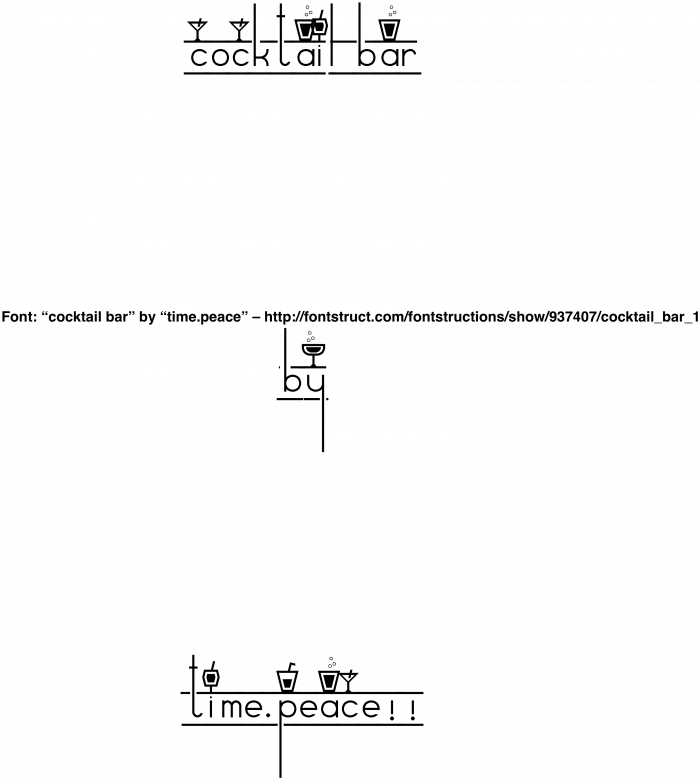
• its happy hour at the font bar
Cheers!
I'll drink to this :)
woah, I wanna see how these letters fit in a sentence, great!
That Q is so clever.
@minidonut, I'm glad you like it, it was really fun to make.
Why do you make a font so cute? I'm really love in it!
A cool image
And no font is complete without a FULL LIQUOR BAR!!!